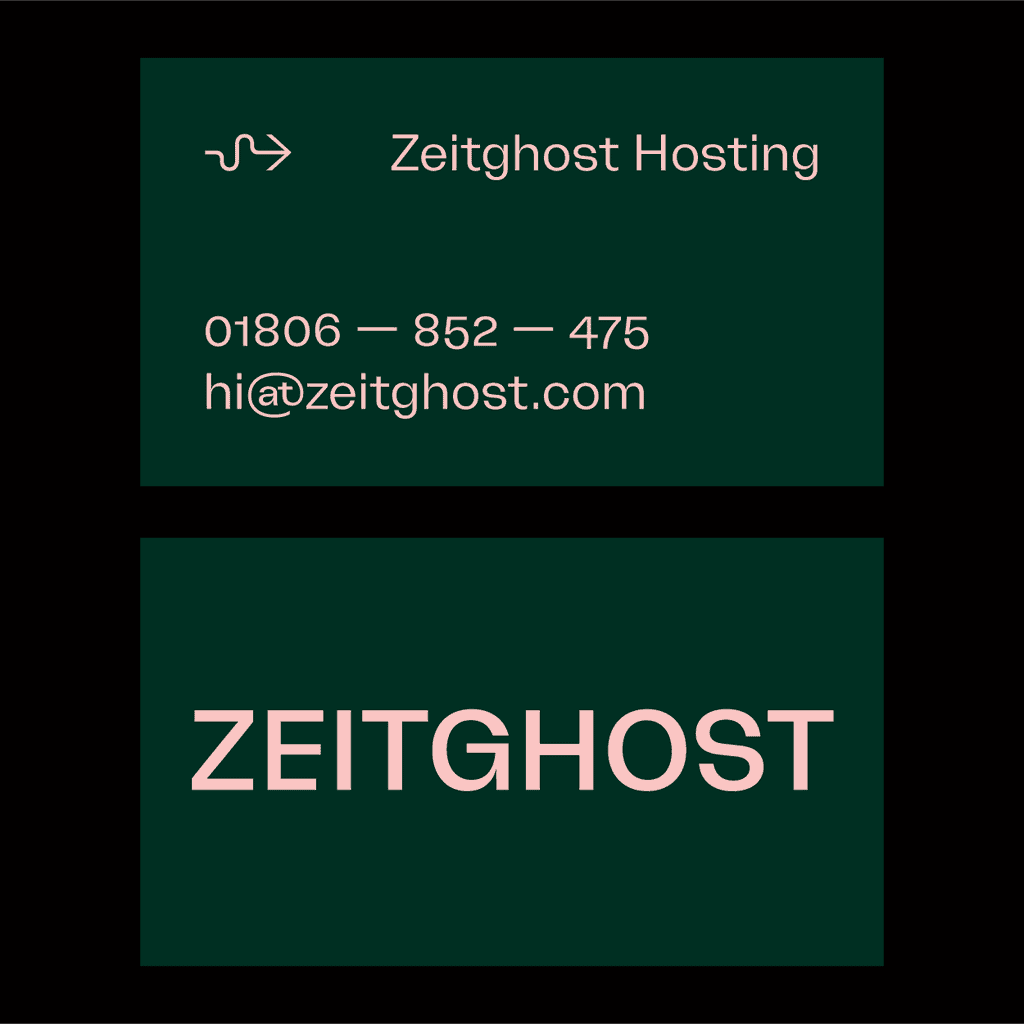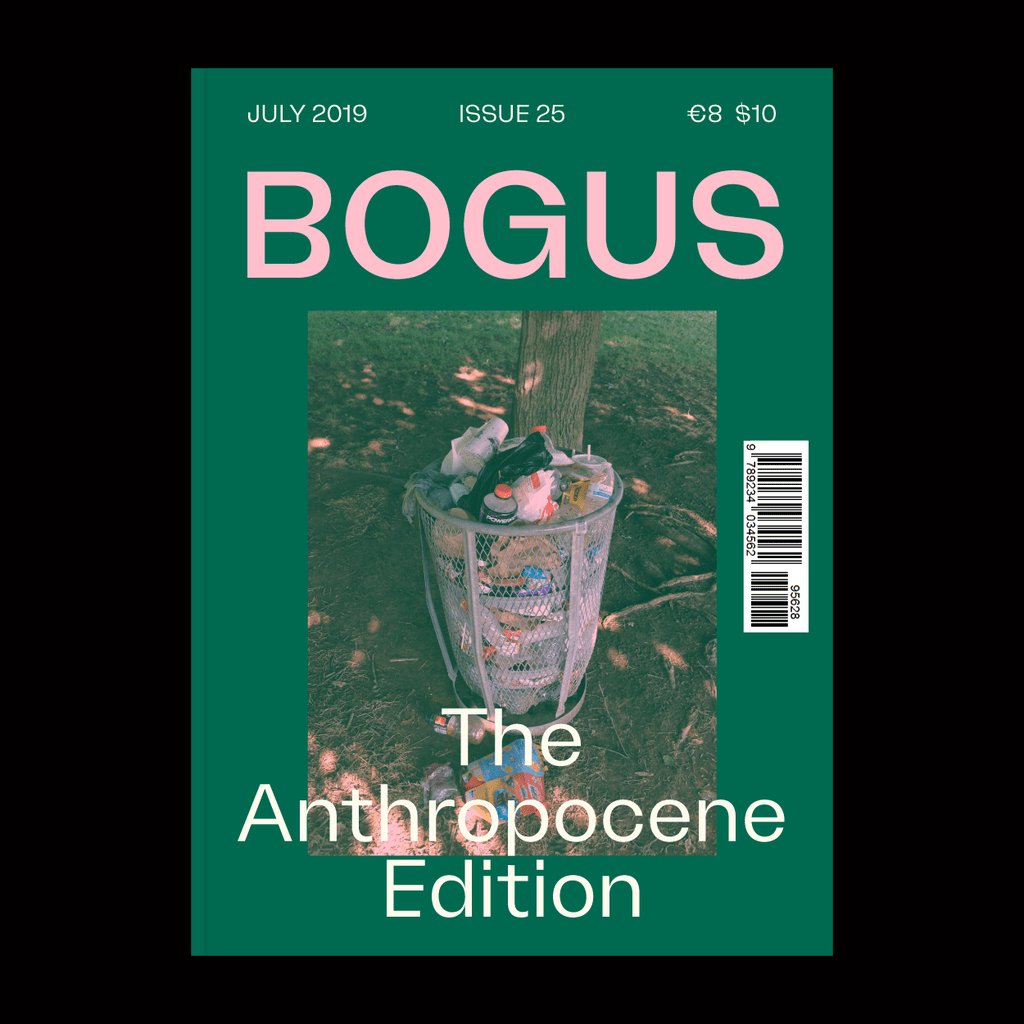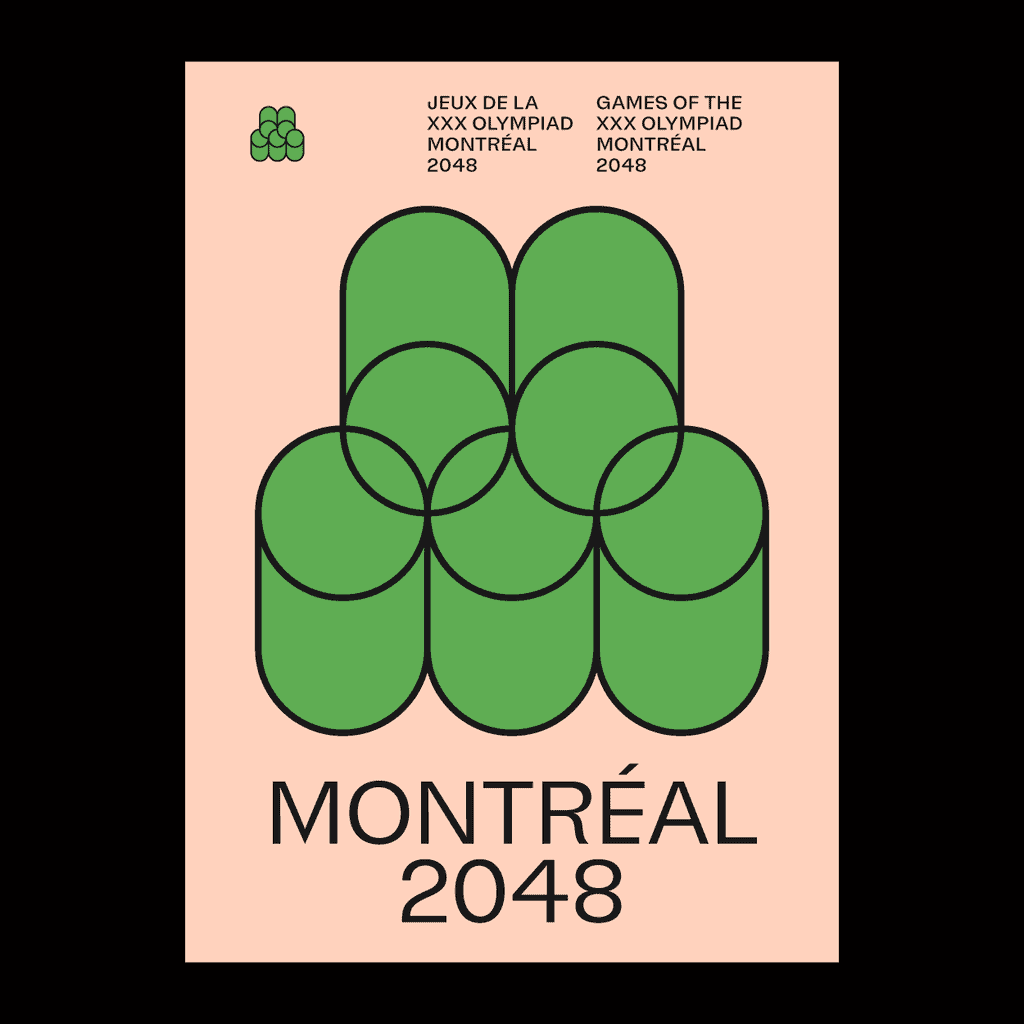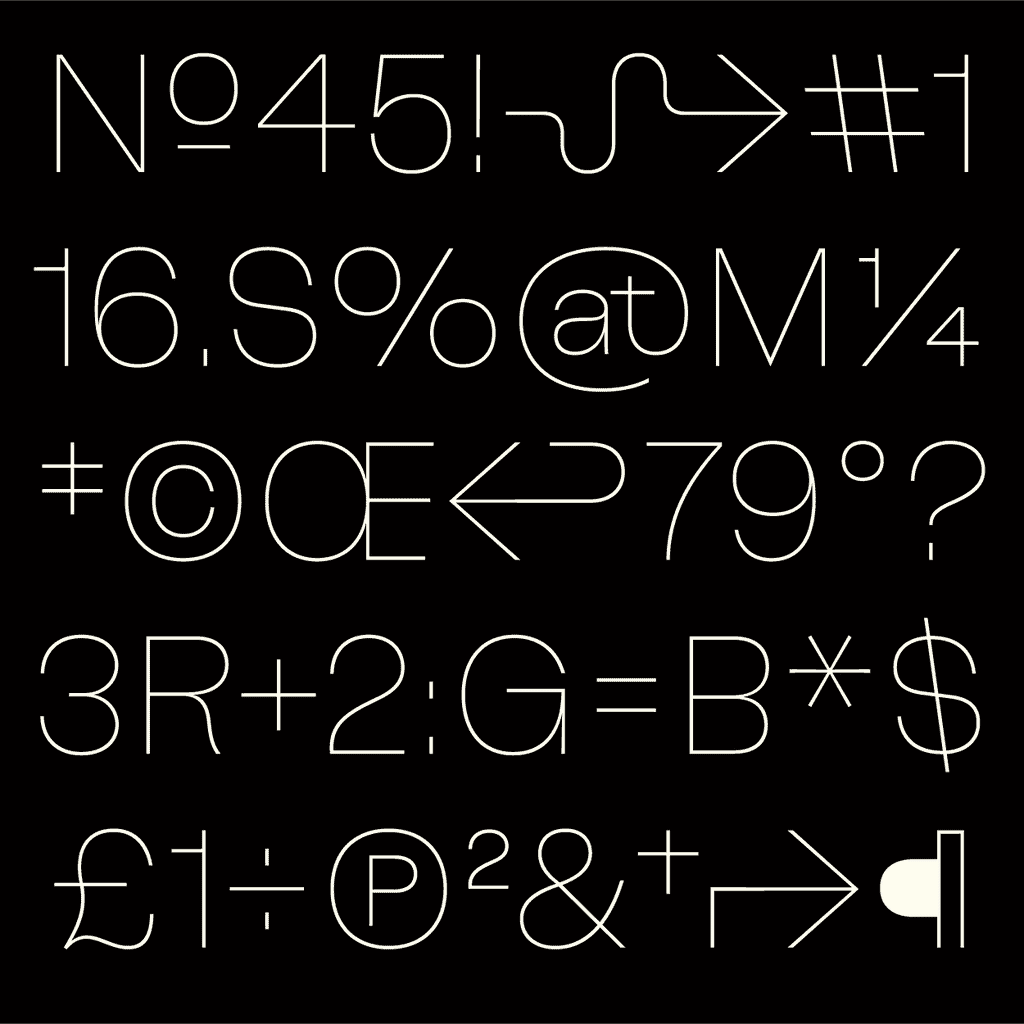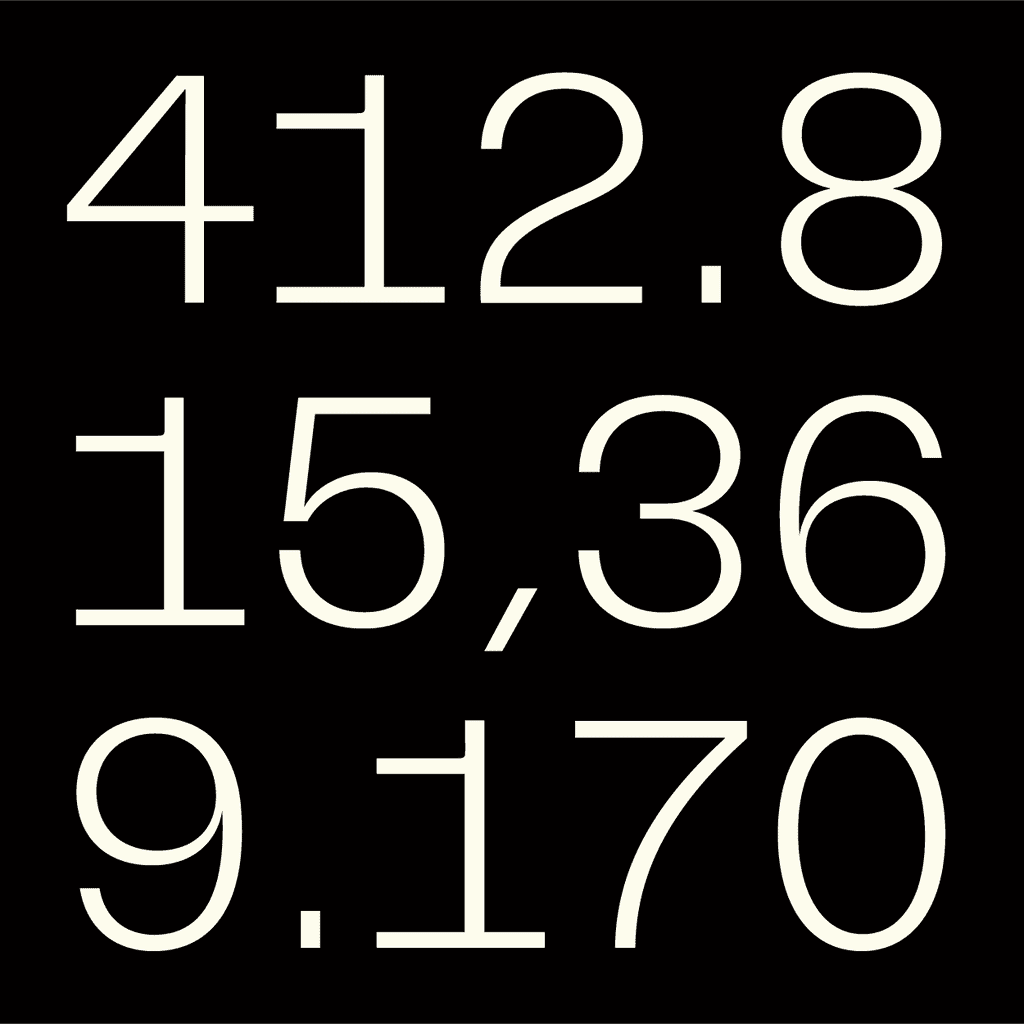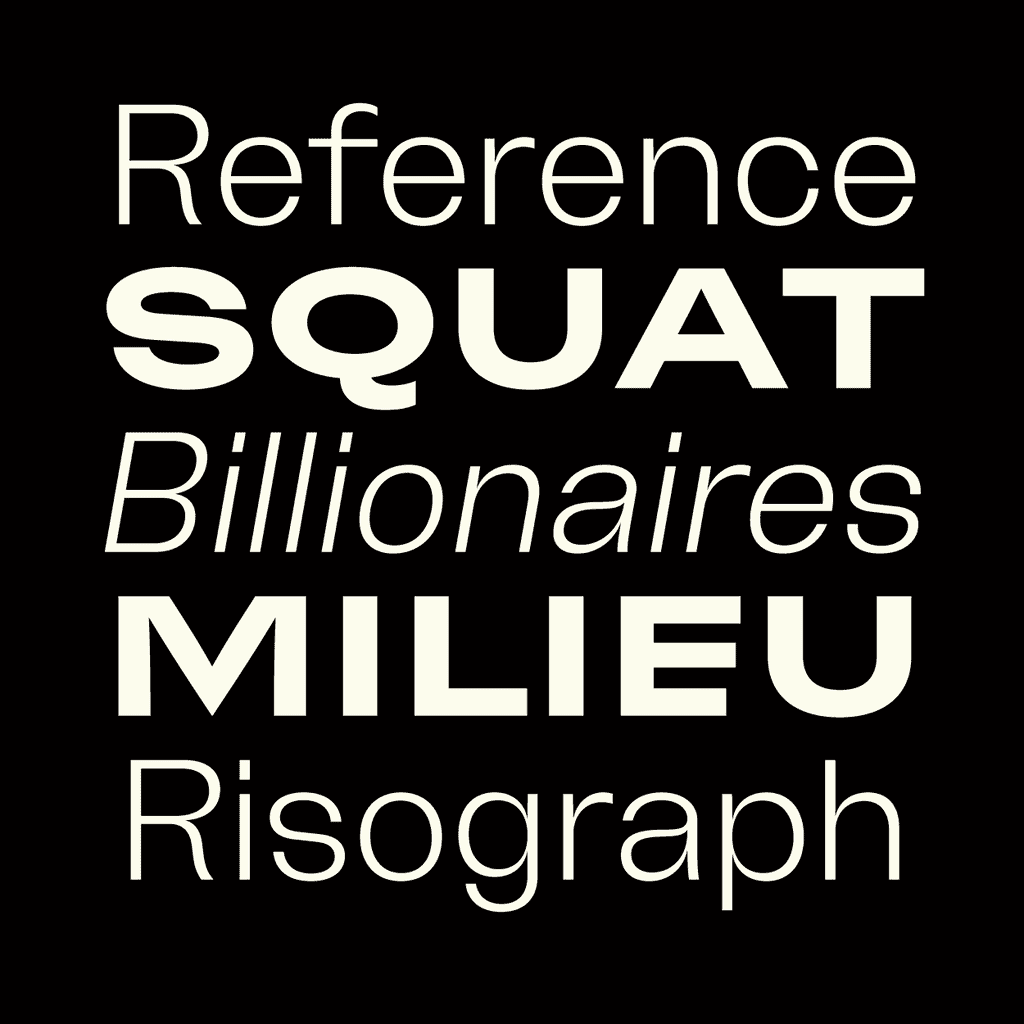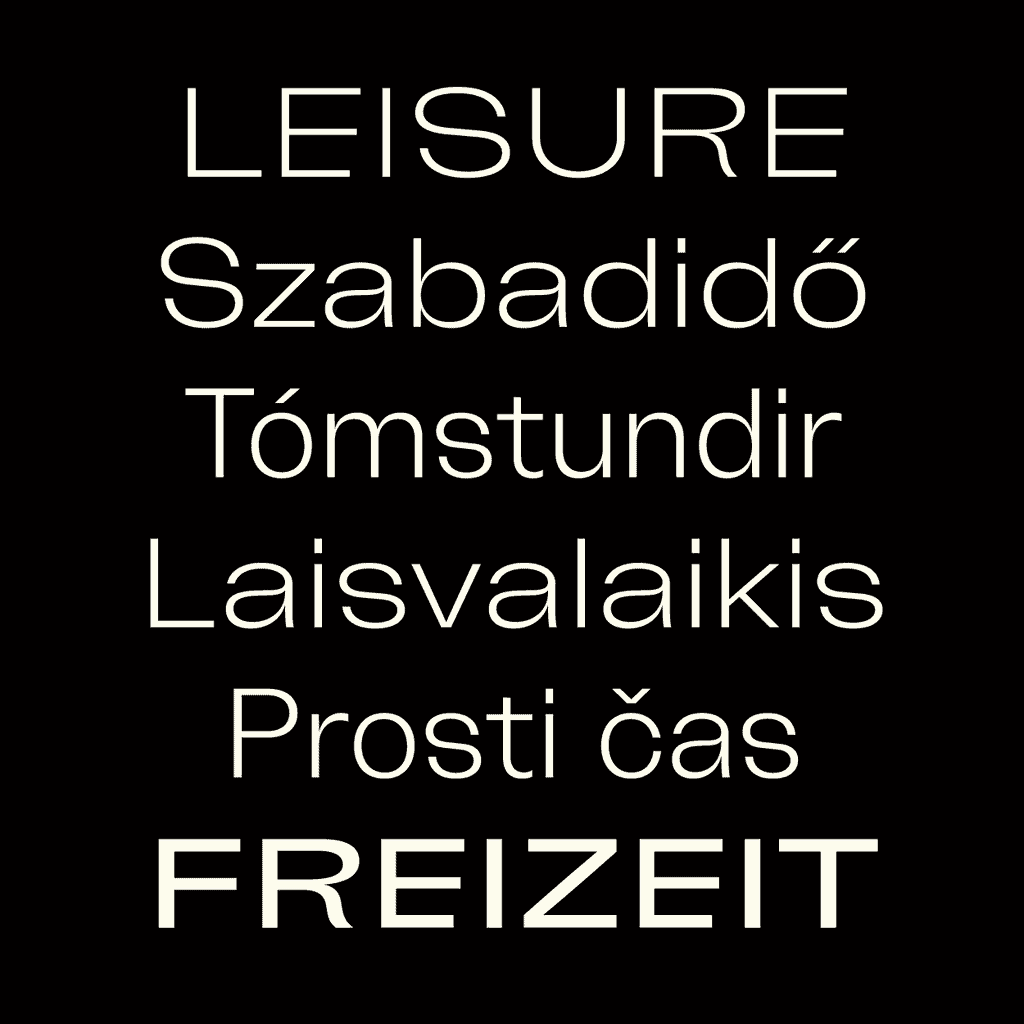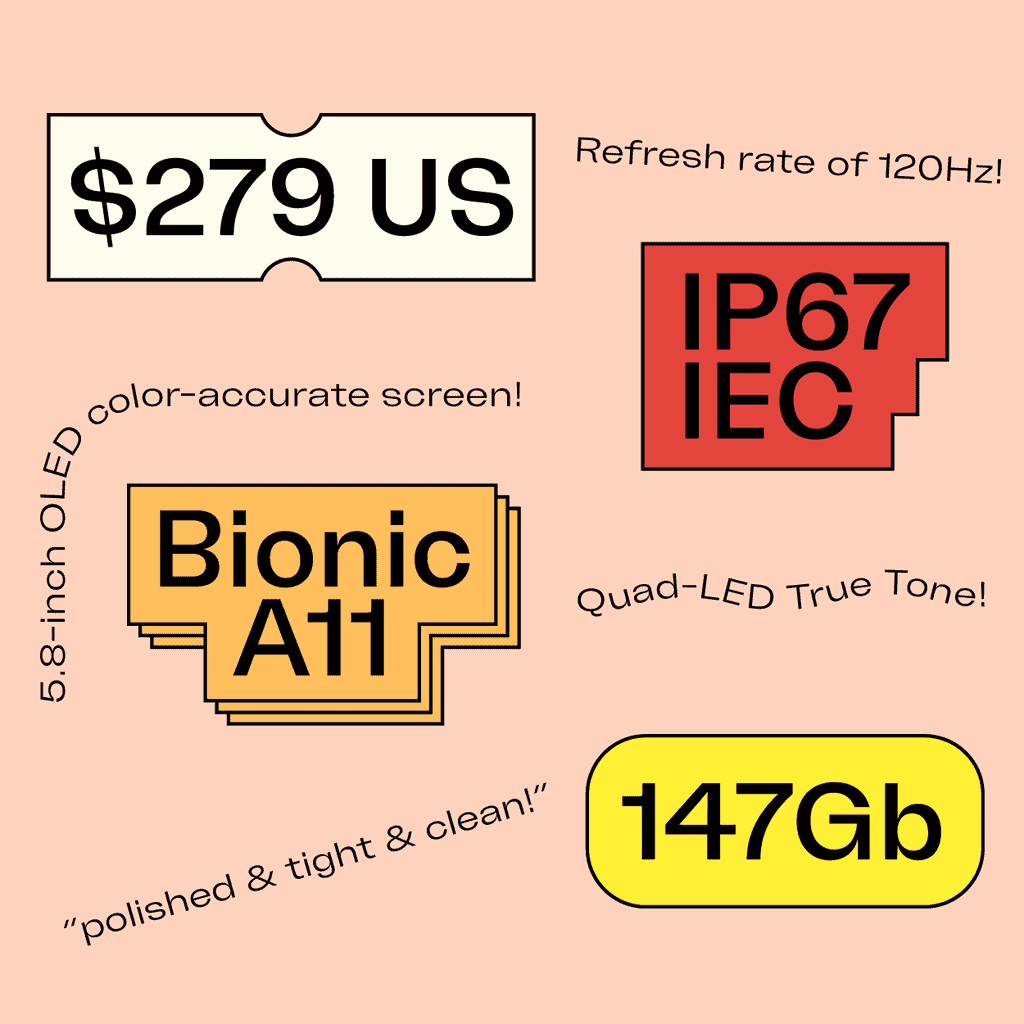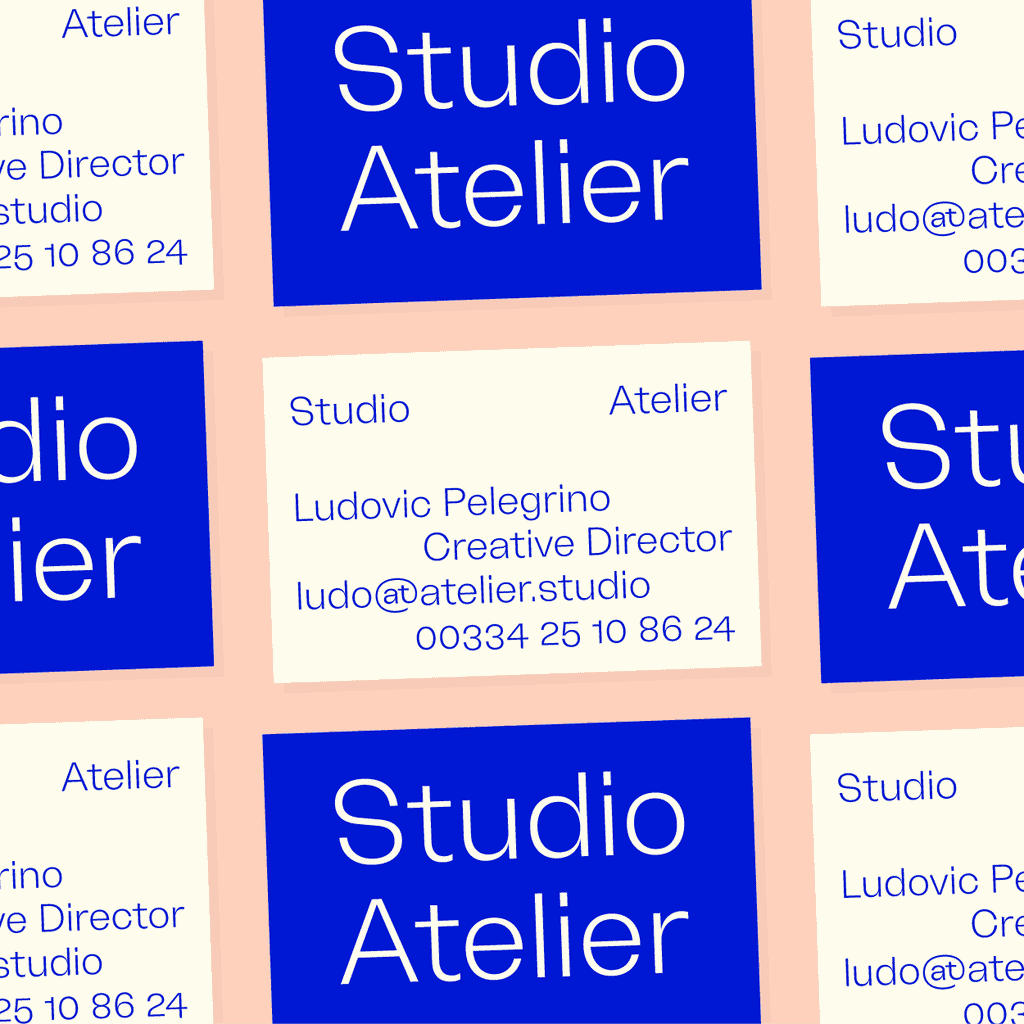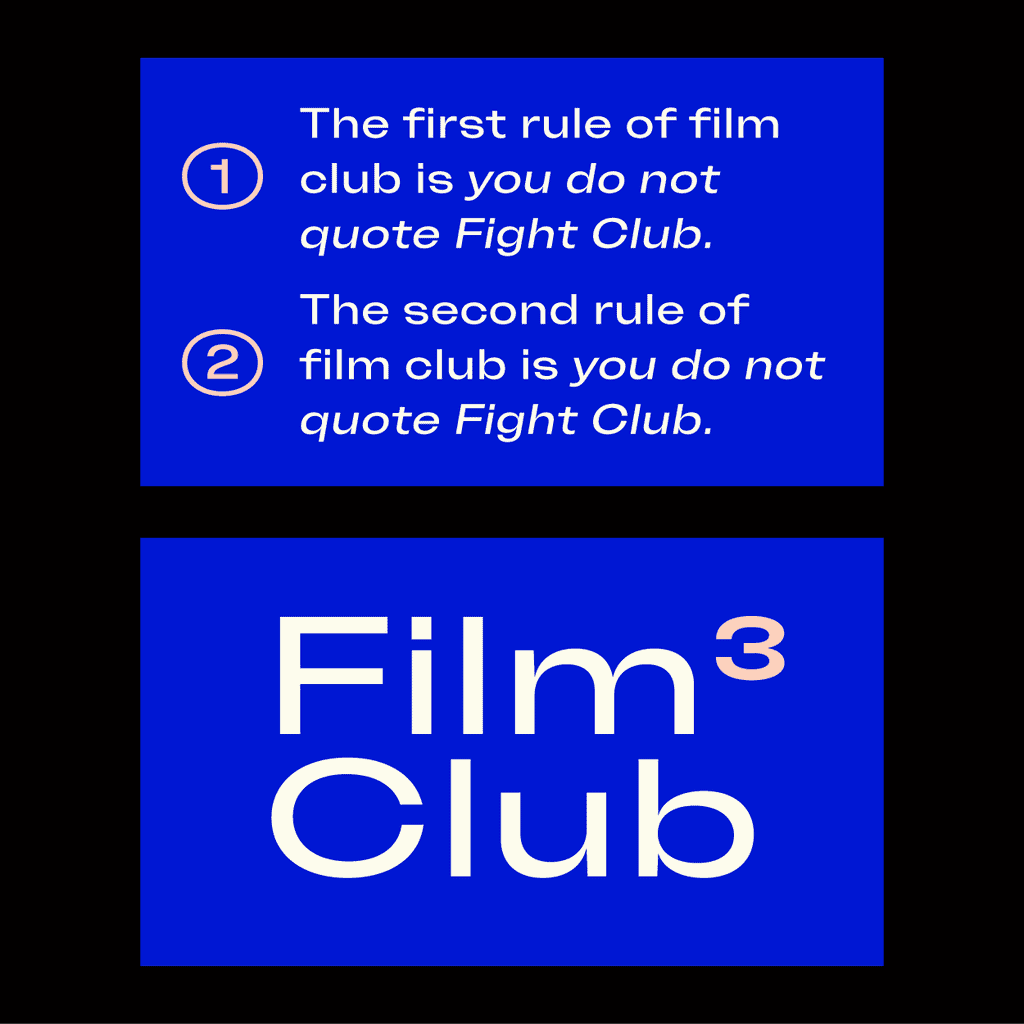
Freizeit140
Freizeit, designed by Lewis Macdonald, is a Neo Grotesque typeface that pays homage to the mid-century classics like Universe, Neue Haas Grotesk, and Folio, while also drawing inspiration from earlier sans serif designs.
Featuring strictly horizontal or vertical terminals, modern proportions, and closed apertures, Freizeit firmly belongs to the Neo Grotesque genre. However, it distinguishes itself with a moderate amount of contrast and a slight angle of stress in certain places. The aggressive stroke narrowing at joins and occasional playful forms deviate from the neutrality of the Swiss realist style, adding a dynamic and contemporary flair.
Freizeit is available in 3 separate widths: 100, 120 and 140.
- Uppercase & lowercase
- Fractions
- Numbers
- Symbols & punctuation
- Arrows
- Ligatures
- Circled figures
- Tabular figures
- Superscript figures
- Case-sensitive forms
- Stylistic Set 1: Alternate a
- Stylistic Set 2: Alternate y
- Stylistic Set 3: Alternate M
- Stylistic Set 4: Alternate Q